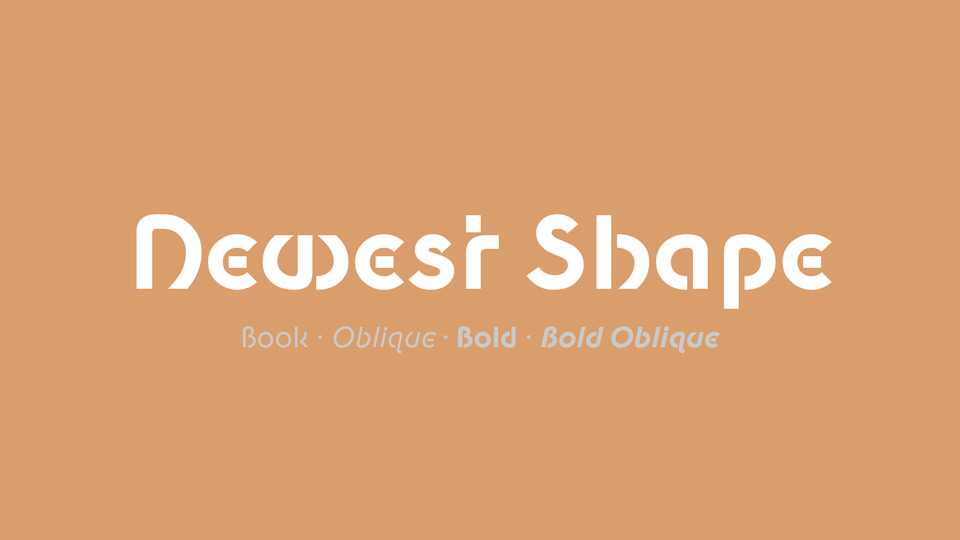
Download Newest Shape font, a geometric sans serif typeface with rounded and modern look. Newest Shape is perfect for editorial and branding design, creating posters and other graphic products.
Designer: Wojciech Kalinowski